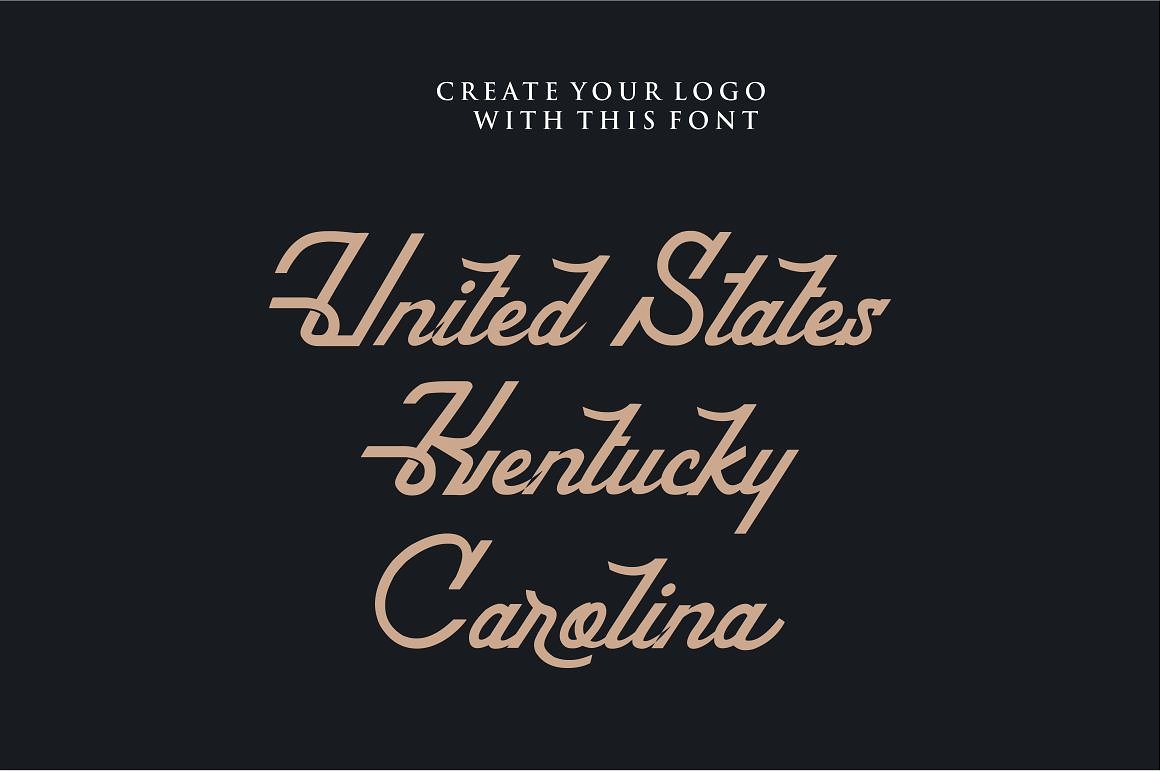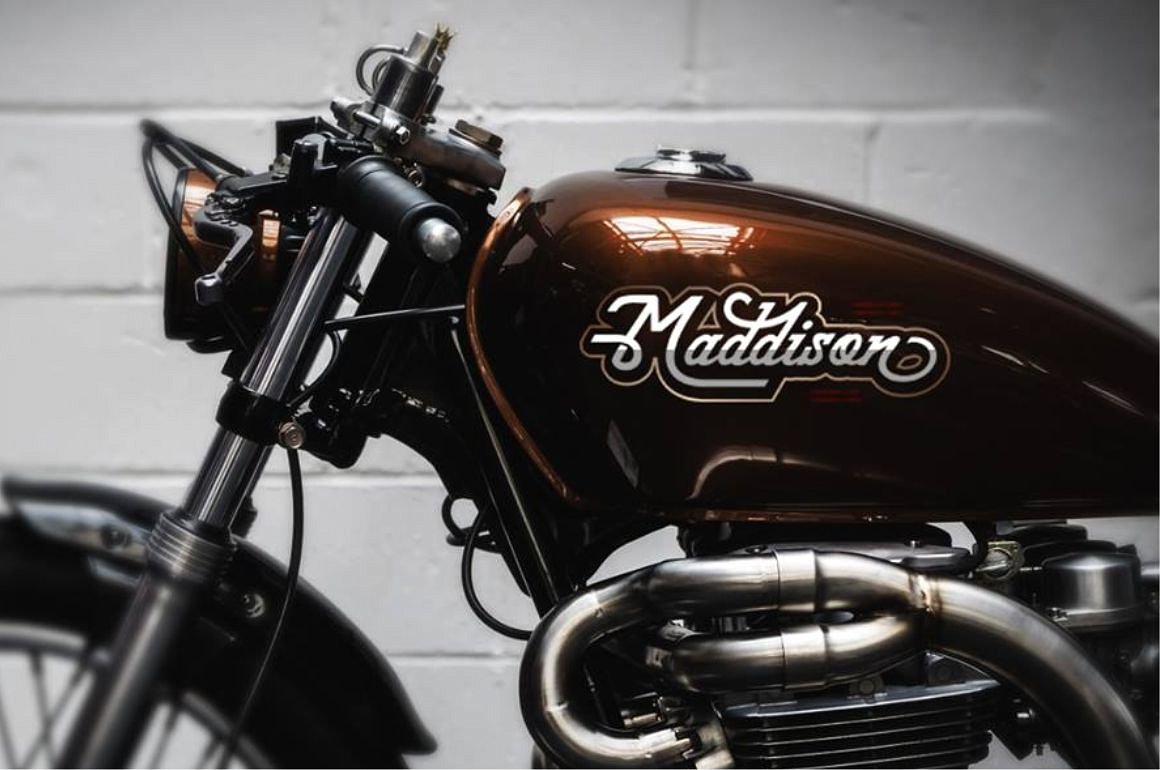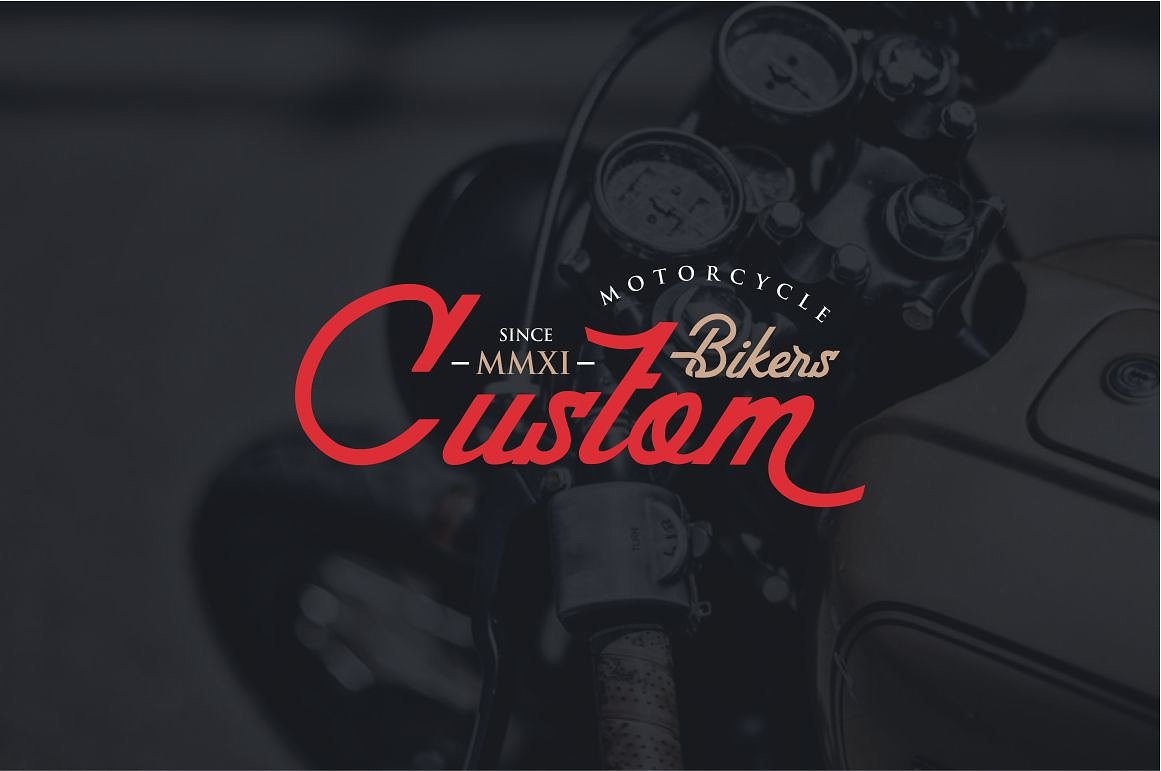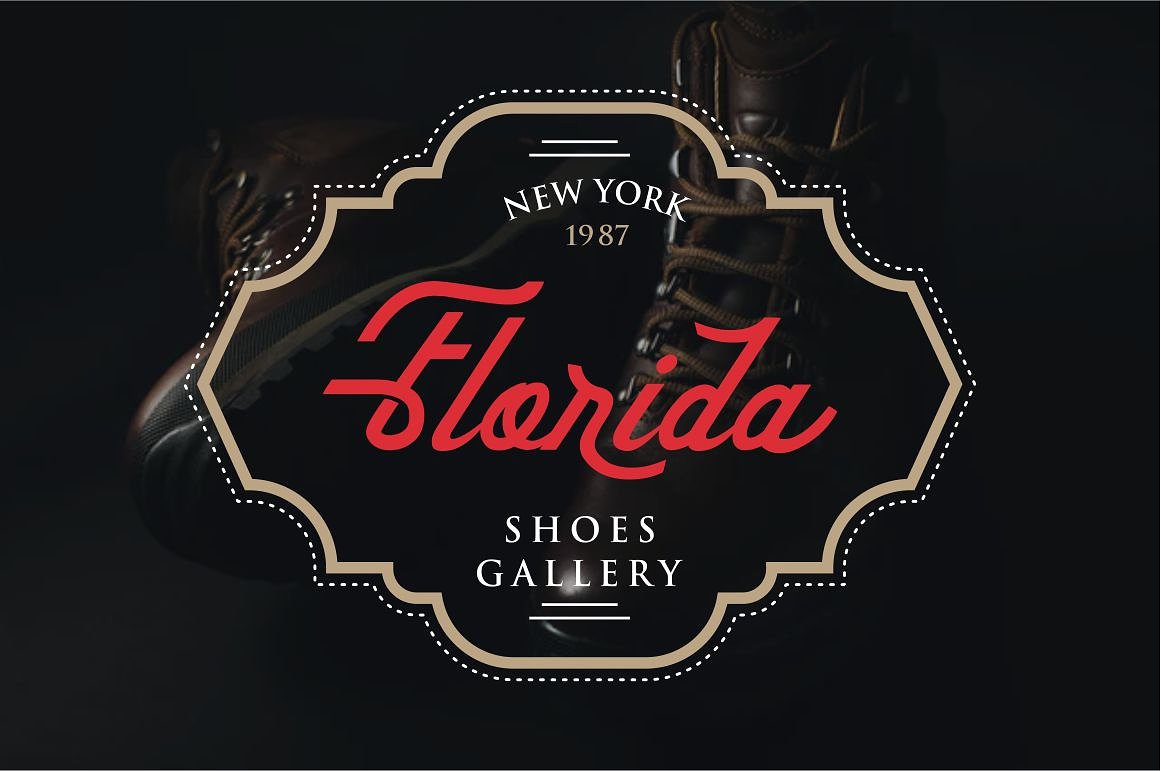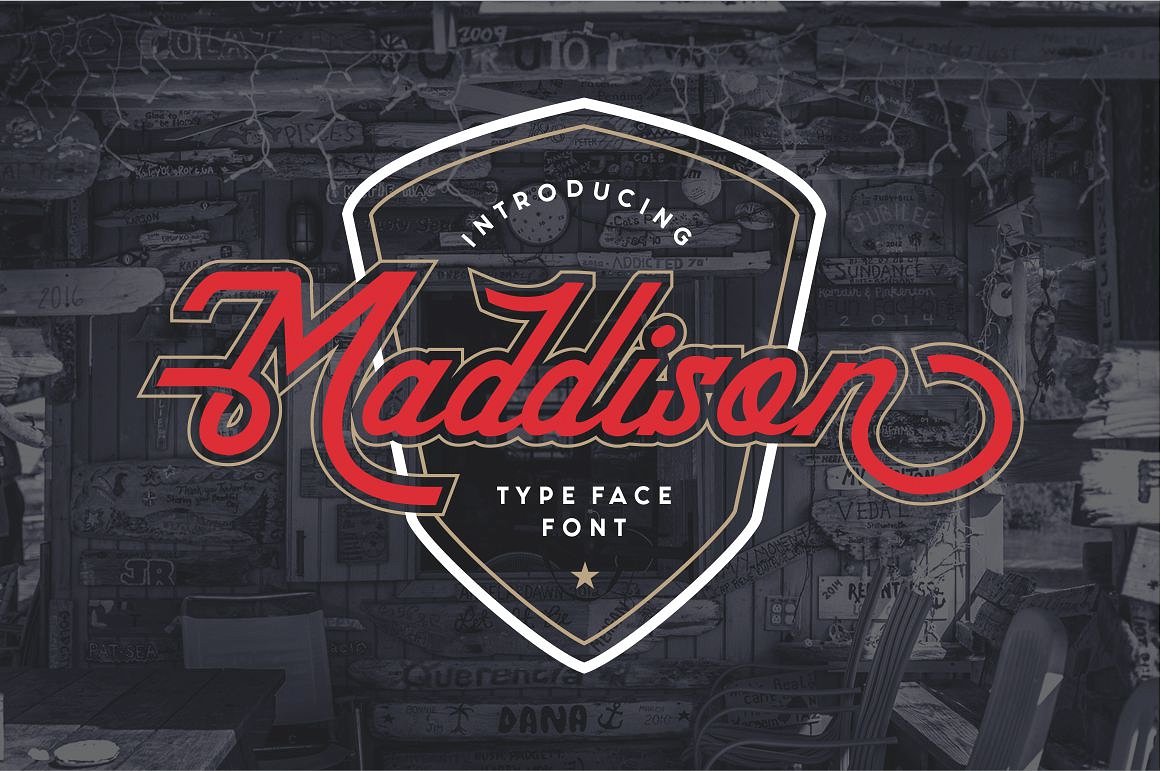
Maddison Typeface
Introducing Maddison Font. Maddison fonts would be perfect create you brand ,logo,name or anything do you want. maddison come with vintage style but modern looking. The fonts are great for product logo,magazine content,automotive club,logo for bar and cafe, clothing brand logo,barbershop,magazine,poster,Vintage design and much more.